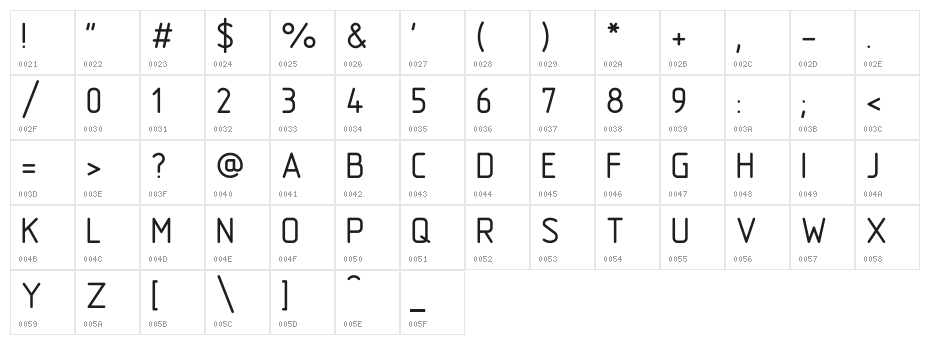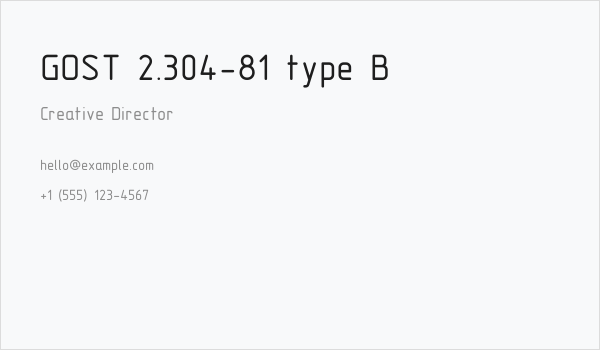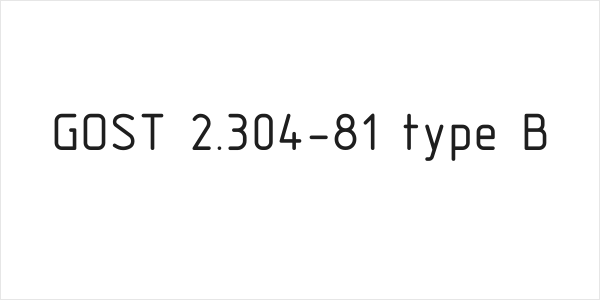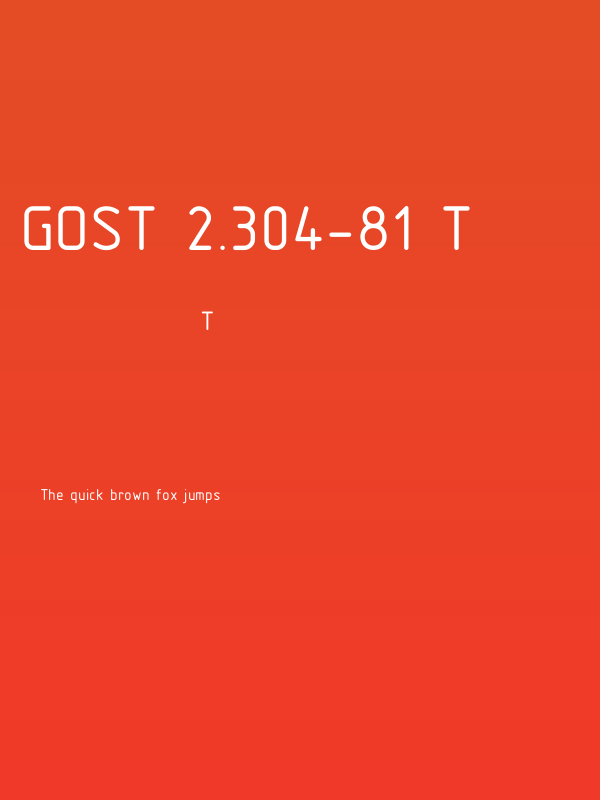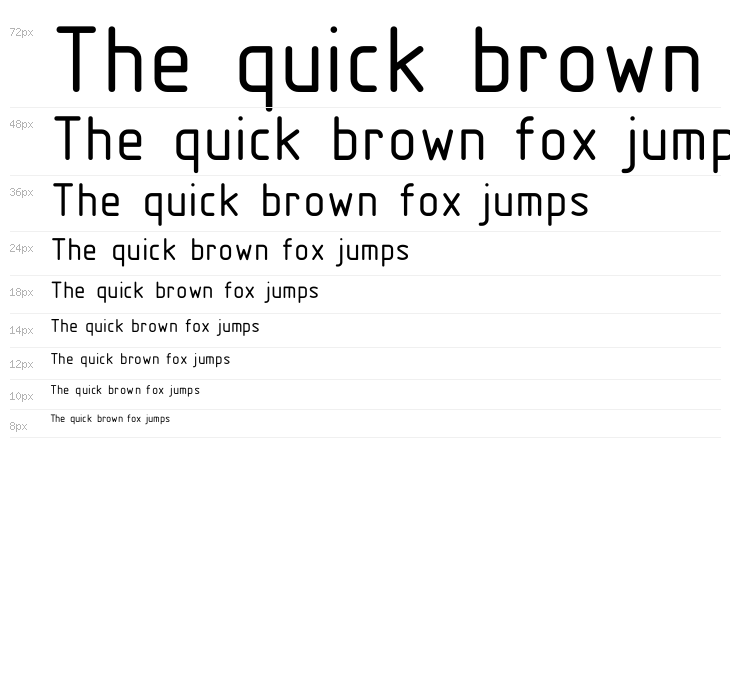
GOST 2.304-81 type B Font
GOST 2.304-81 type B Description
This font features a clean and modern design with rounded edges and a geometric structure. The uppercase and lowercase letters maintain a consistent height and width, providing a uniform appearance. The numerals are clear and easy to read, making them suitable for technical or digital displays. Special characters are well-defined and integrate seamlessly with the overall style. The font's simplicity and clarity make it ideal for use in environments where readability is crucial, such as signage or user interfaces.
| Use Case | Signage, Technical manuals, Digital interfaces |
| Proposed Projects | Ideal for technical manuals, digital interfaces, signage, and branding materials. |